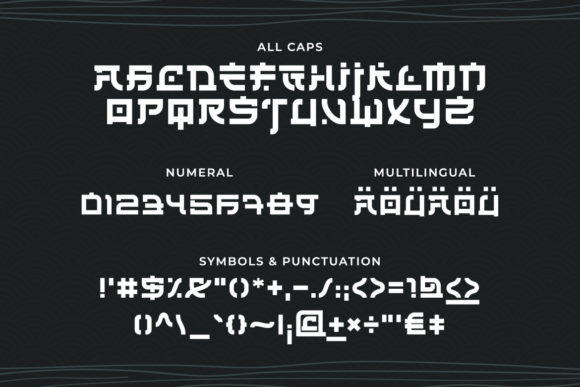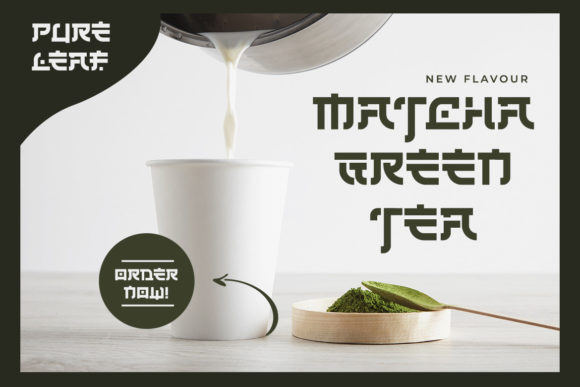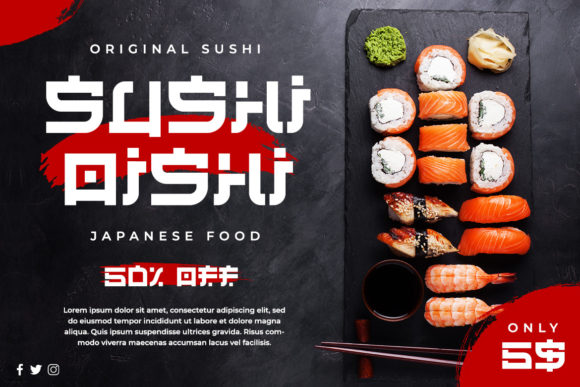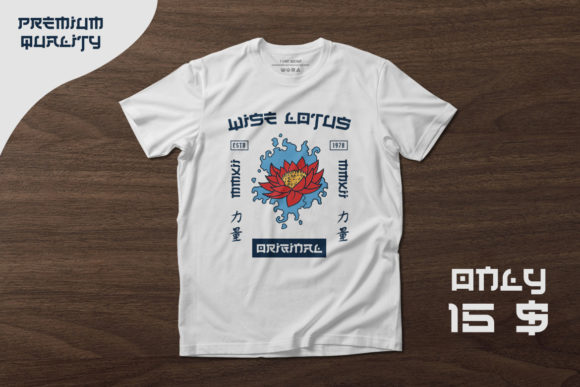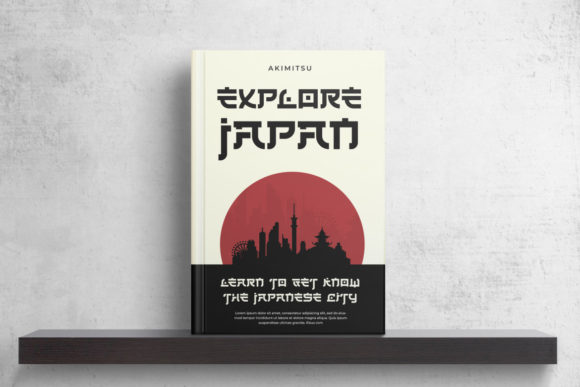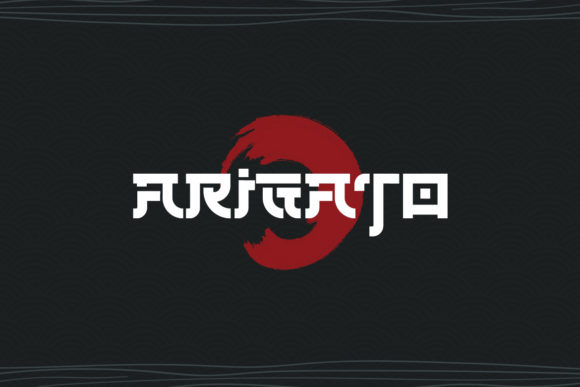
Introduction to Renji Font
Remember that moment when you’re working on a creative project and you finally find the perfect font to bring it all together? It’s like the missing piece of a puzzle, and everything just clicks into place. For designers, finding the right font can be a game-changer, and that’s exactly what the Renji Font does.
With its simple Japanese-inspired design, Renji Font adds a striking touch to any design project. Whether you’re creating a t-shirt design, branding a new restaurant, or adding a personal touch to name tags, this font is sure to make a lasting impression. Its great readability and versatility make it a valuable resource for designers looking to elevate their work.
Key Features of Renji Font
- Unique, modern design with a touch of elegance, perfect for branding and graphics
Honest Review: Renji Font
As a designer, I’ve had my fair share of working with various fonts, and I must say that Renji Font has been a pleasant addition to my design resources. I was drawn to its high quality and unique aesthetic, making it a perfect fit for creative projects that require a touch of elegance.
The font features a transparent background, which is a great feature for designers who want to layer their designs without the hassle of dealing with background elements. This flexibility is especially useful for projects that involve complex compositions.
- ✨ High-quality design that exudes sophistication and elegance
- ✨ Unique aesthetic that sets it apart from other fonts in its category
- ✨ Transparent background for seamless layering
- ⚠️ Limited character set, which may not be suitable for projects that require a wide range of characters
- ⚠️ Not ideal for projects that require bold or italic font styles
Overall, I’m impressed with Renji Font’s performance and would definitely recommend it to designers who are looking for a high-quality, elegant font for their creative projects.
Tips for Getting the Most Out of Renji Font
To get the most out of the Renji Font, use it with a transparent background to create a clean and modern design. Experiment with different font sizes and colors to make your design stand out. You can also use the Renji Font in combination with other high-quality design resources to create a unique and creative project.
The Renji Font is commonly used in graphic design, digital art, and creative projects. It’s a great resource for designers who want to create a unique and modern look. You can use the Renji Font in logos, posters, flyers, and other design materials.